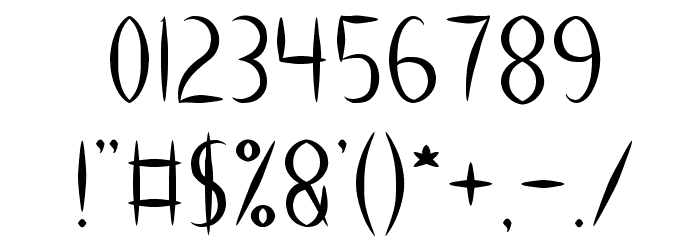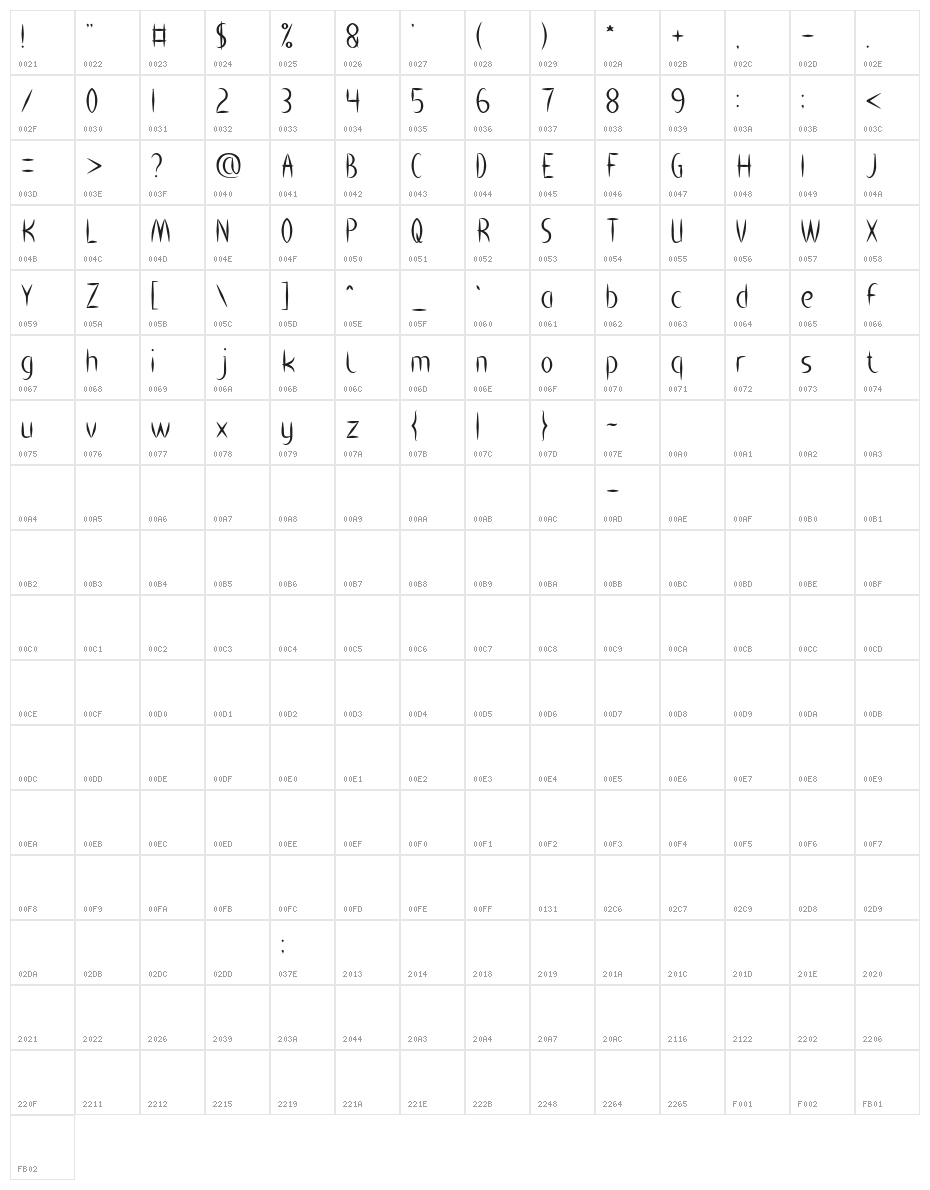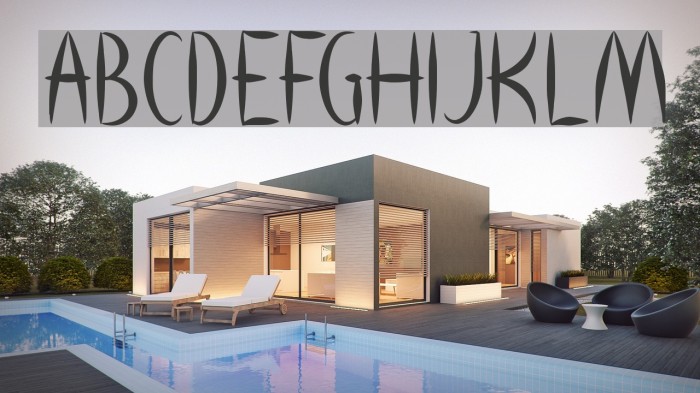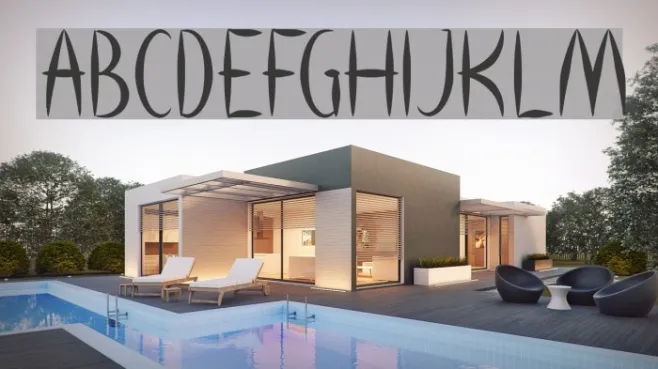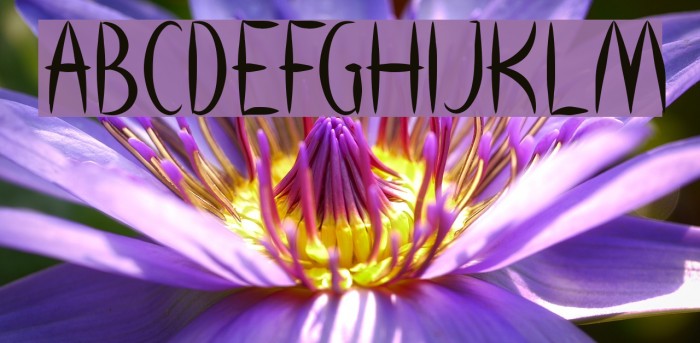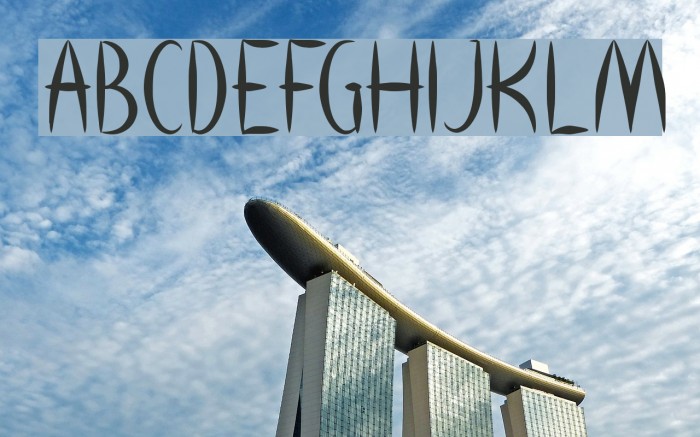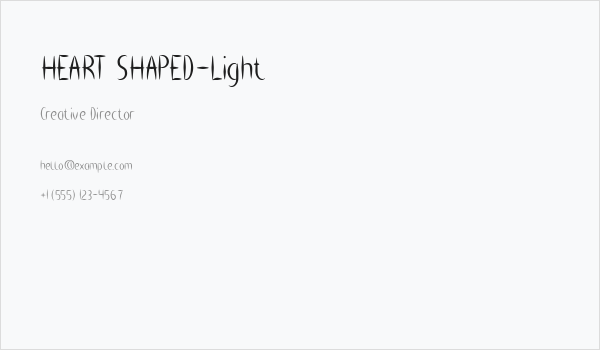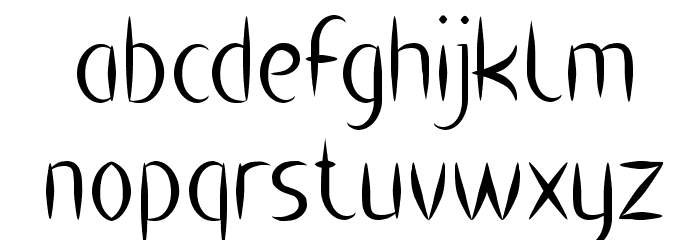
HEART SHAPED-Light Font
HEART SHAPED-Light Description
This font features a unique and playful design with elongated, heart-shaped strokes that create a whimsical and artistic appearance. The uppercase letters are tall and narrow, with a distinct tapering effect at the ends, giving them a dynamic and lively feel. The lowercase letters maintain a consistent style, with rounded edges and a slightly condensed form, adding to the font's charm. The numerals are crafted with the same playful curves, ensuring a cohesive look across all characters. Special characters are designed with creativity, incorporating the heart-shaped motif throughout. This font is ideal for projects that require a touch of elegance and fun, making it suitable for creative branding, invitations, and artistic designs.
| Use Case | Logos, Headlines, Artistic designs |
| Proposed Projects | Ideal for creative branding, invitations, artistic designs, and playful advertising. |